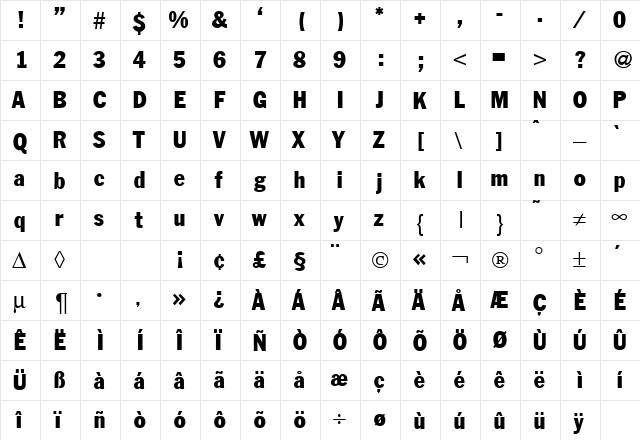
FranklinHeadlineCond Bold Font Preview
Design Context for FranklinHeadlineCond Typeface
FranklinHeadlineCond takes a measured approach to typography — its balanced proportions and neutral character make it a reliable workhorse for both digital and print work. Its bold stroke weight gives it real presence on the page. The condensed width makes it efficient for tight spaces without sacrificing legibility.